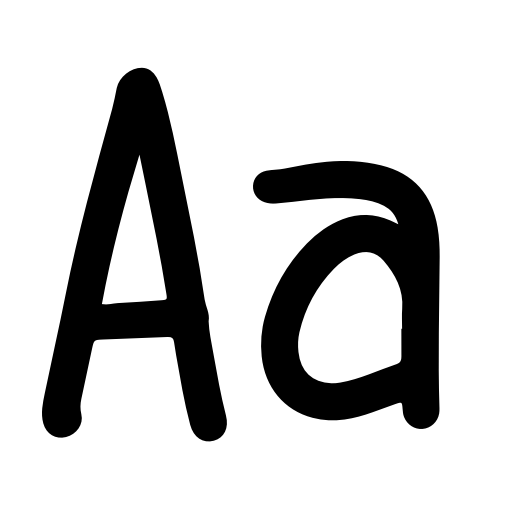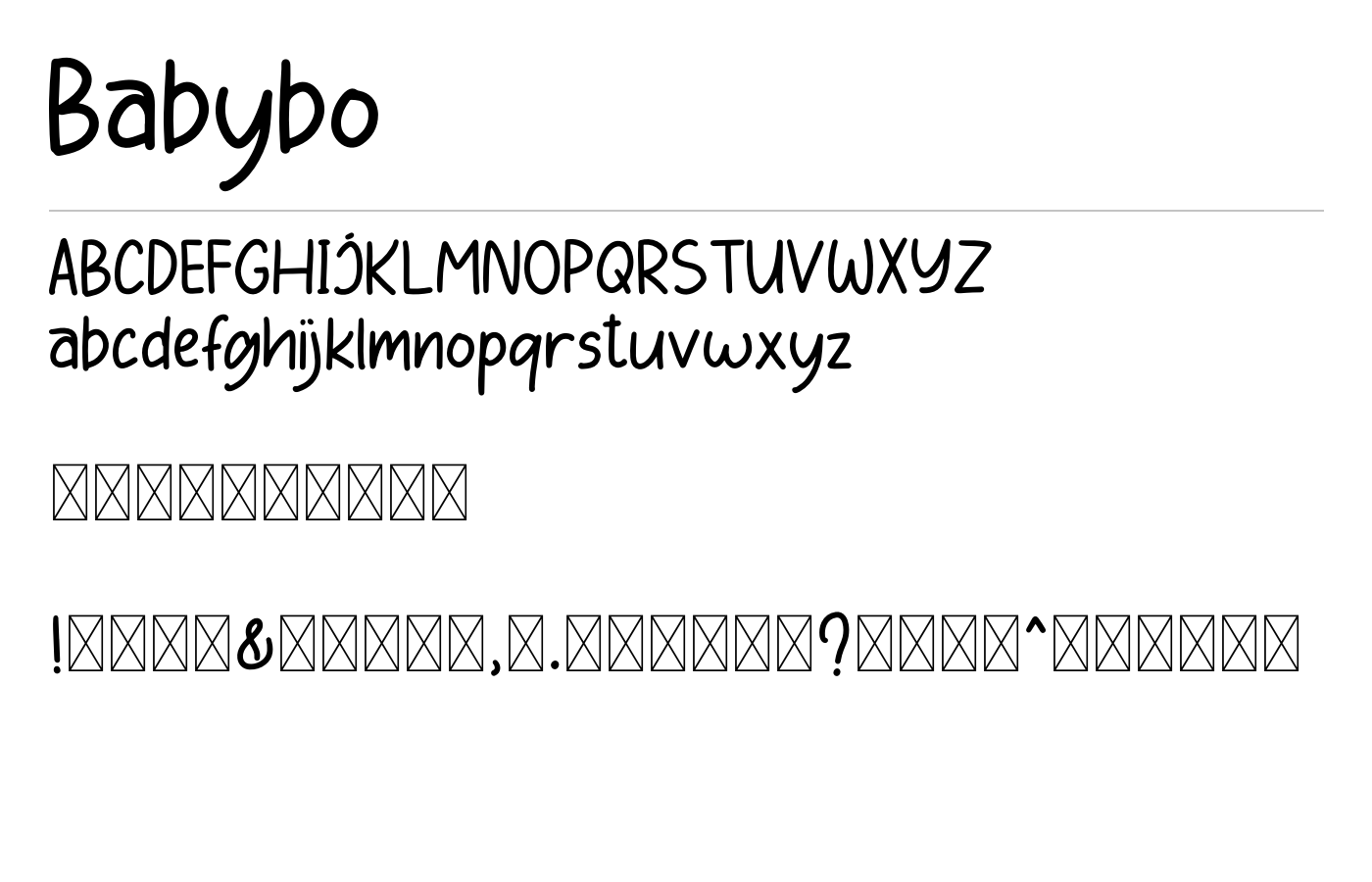
Babybo is a playful, casual sans serif font with a handwritten feel, characterized by its tall, narrow letterforms and smooth, rounded strokes. Its light weight and simple, friendly shapes make it ideal for children’s materials, informal branding, and creative projects that want to express warmth and approachability. This font works well for headlines, logos, and playful designs where a personal and quirky touch is desired.
Babybo Font
About Babybo Font
| Font family | Babybo Font |
| Designer | Ana Natalia |